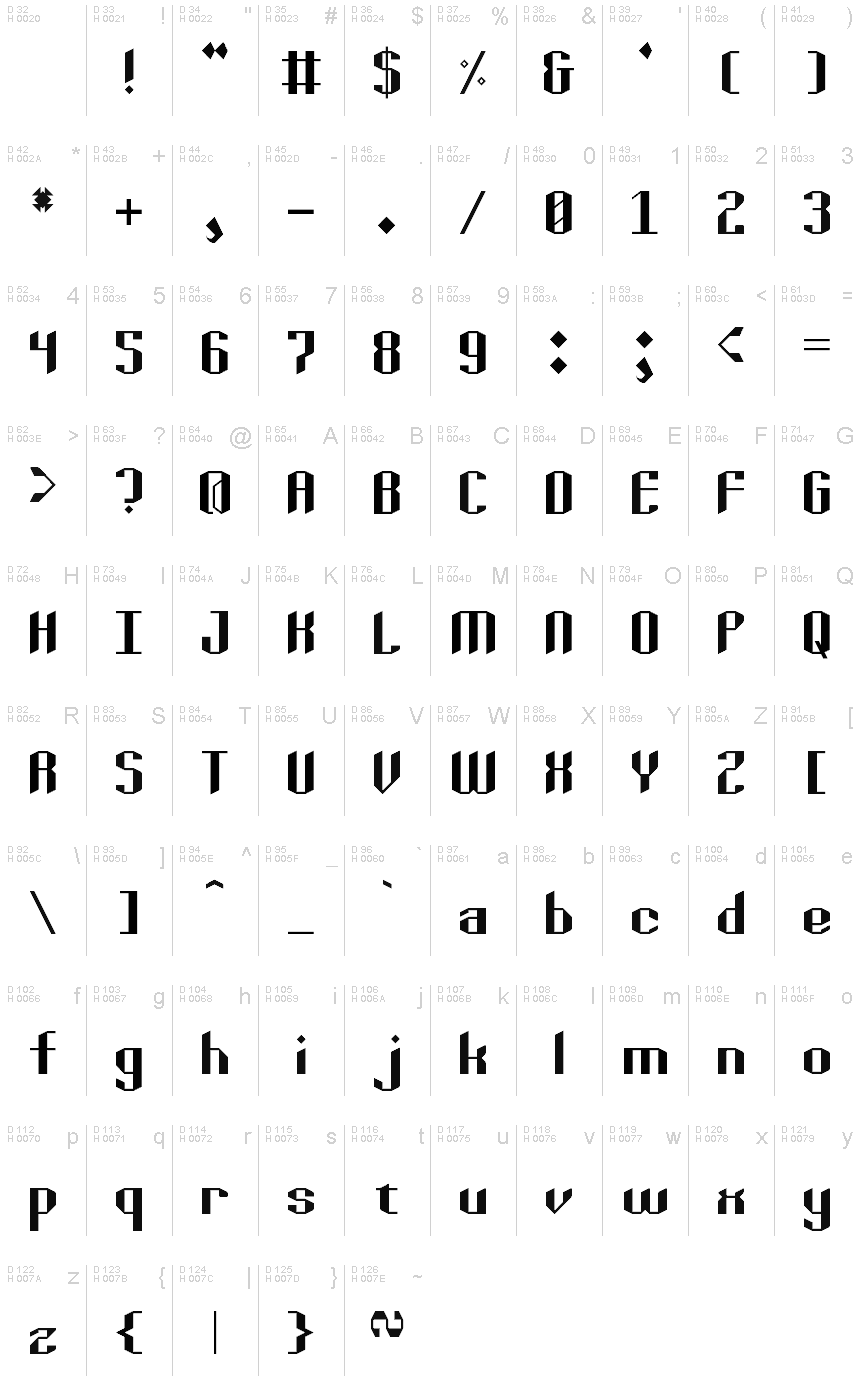
Basalt Regular
A font made in the proto-calligraphic style I invented and used when I was a teenager circa 2001-2002. I haven't owned a nibbed pen since those days, so this font is as far as the style was ever allowed to evolve. It's somewhat lacking the handwritten character my writing had, but this regularity is the result I was trying to achieve. I had no particular use in mind for the style other than titling documents. For that reason I consider this to be a Headliner.
NOTES:
- This is Pixel Optimized at 2x size and greater, and can be optimized at 1x size by doubling the letterspacing. (May no longer be true since I've added so many new letters...)
- "I" is kerned to itself so that it can be used to make nicer-looking Roman numerals.